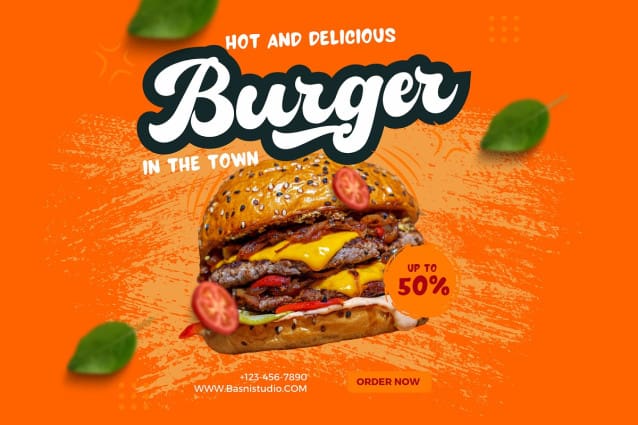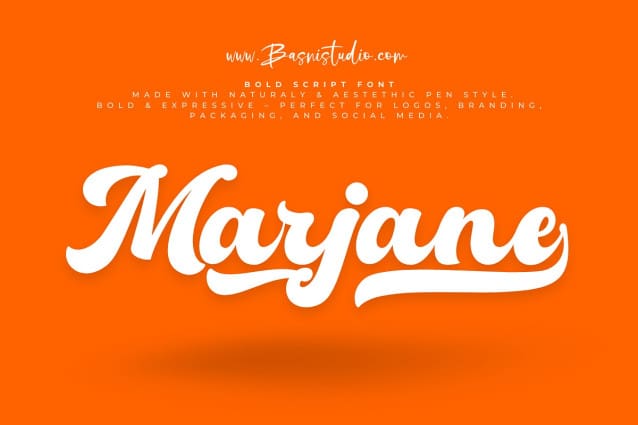
Marjane Script Font
Marjane Script Font, a Bold Logo font designed for brands that demand attention. Authentic Bold Logo Font Style – Every stroke exudes personality and fluid motion.
Bold & Expressive – Perfect for logos, branding, packaging, and social media.
Alternates & Ligatures – Easy use to modify With Special character.
Clean Brush Texture – A raw, organic feel that adds character and uniqueness.
Make your mark with a Bold Logo font that speaks with confidence. Create. Inspire. Stand out.